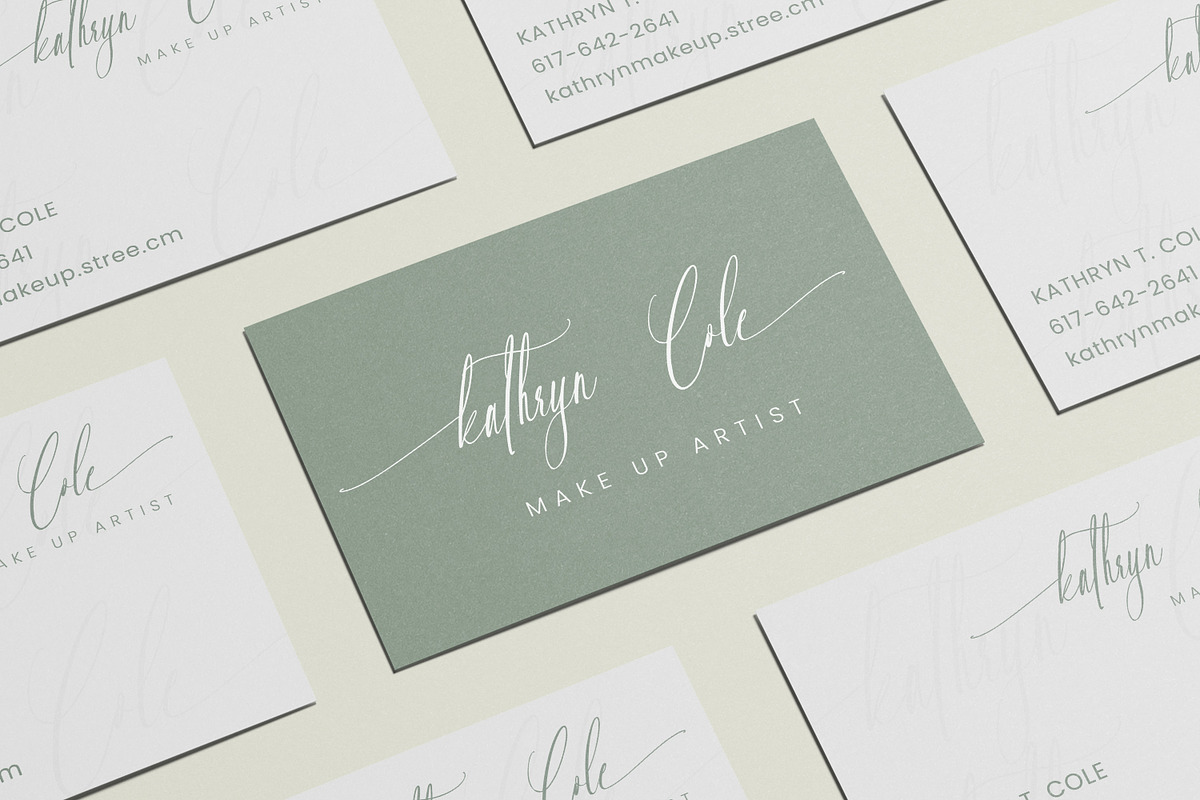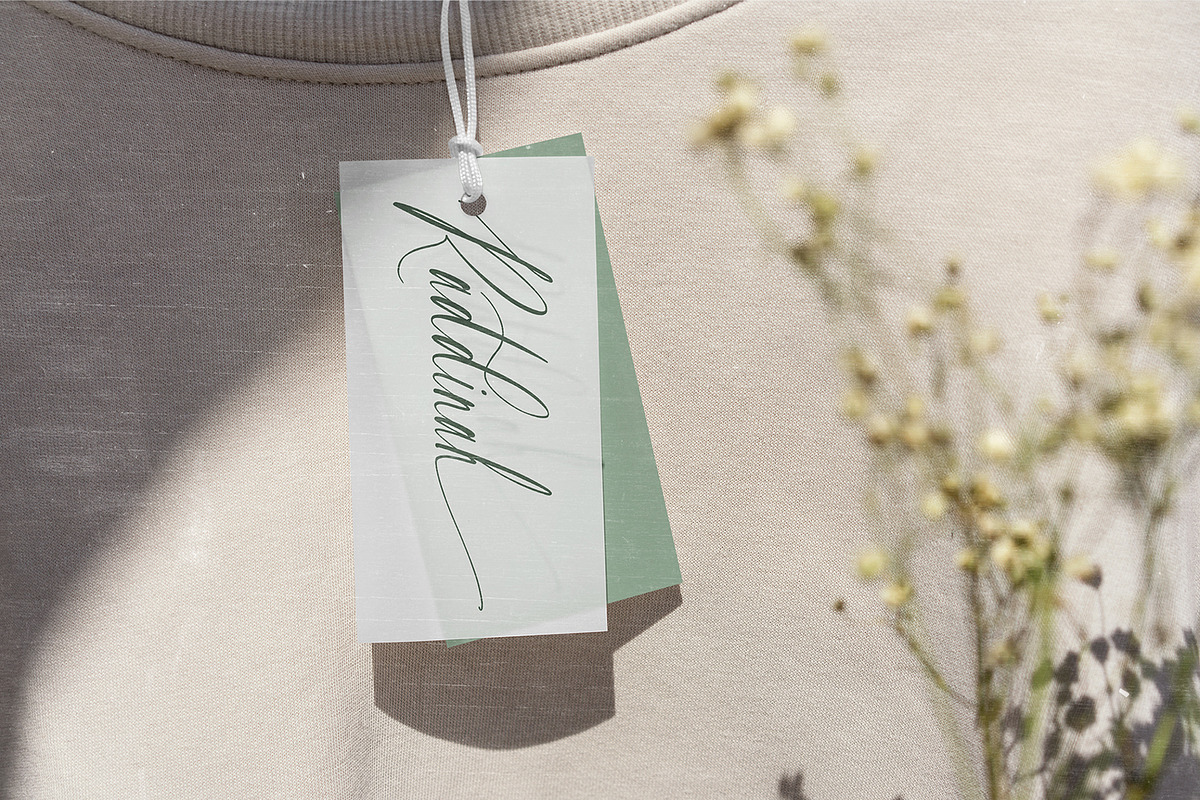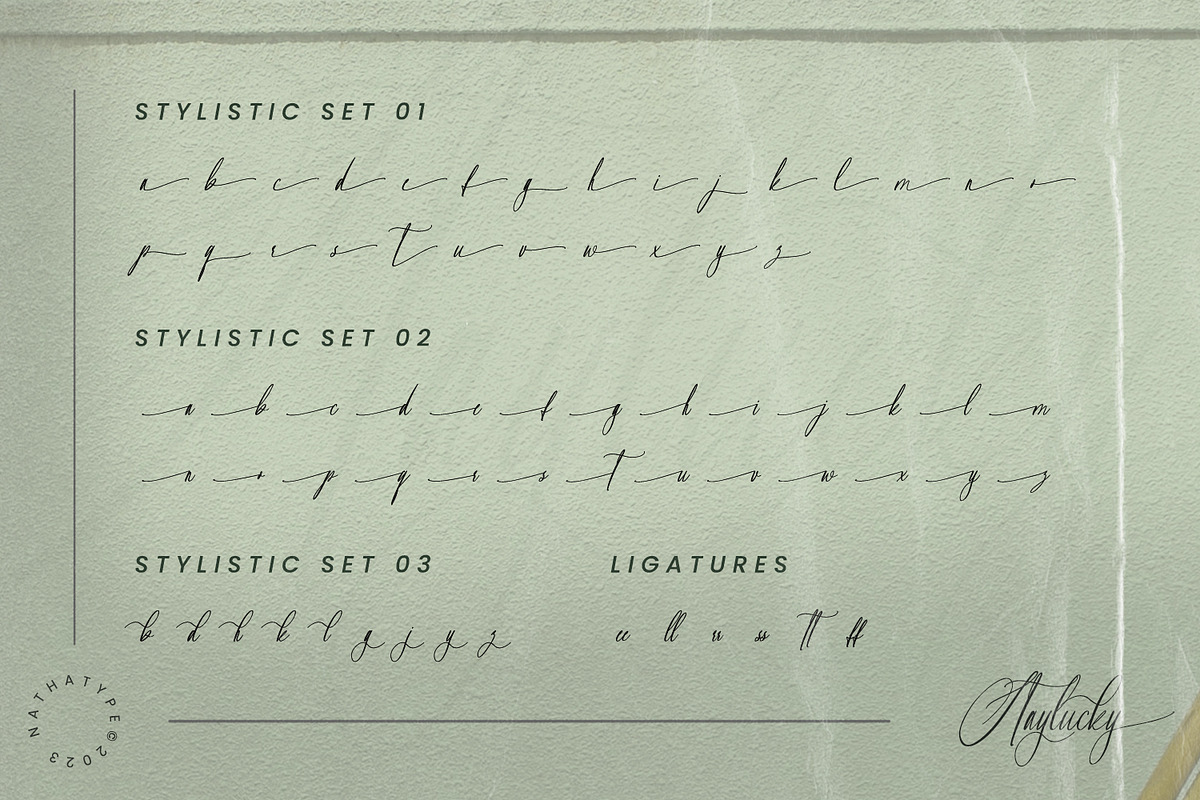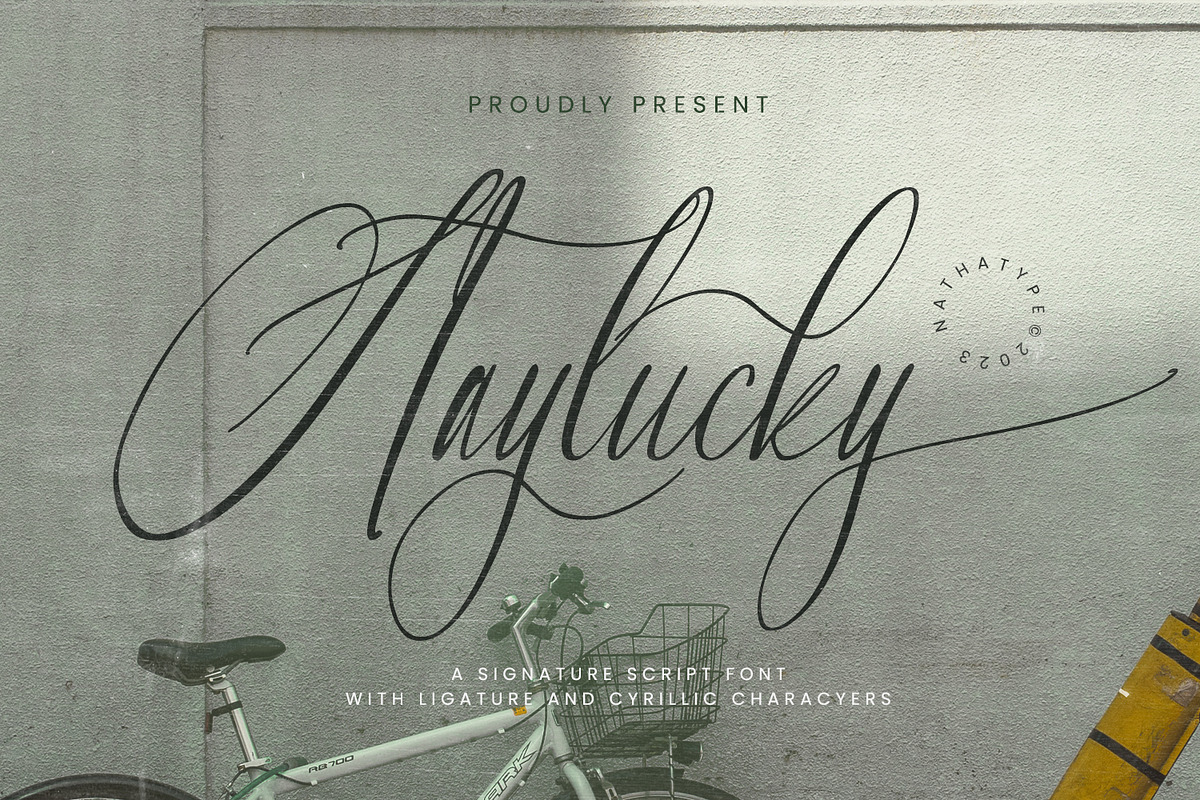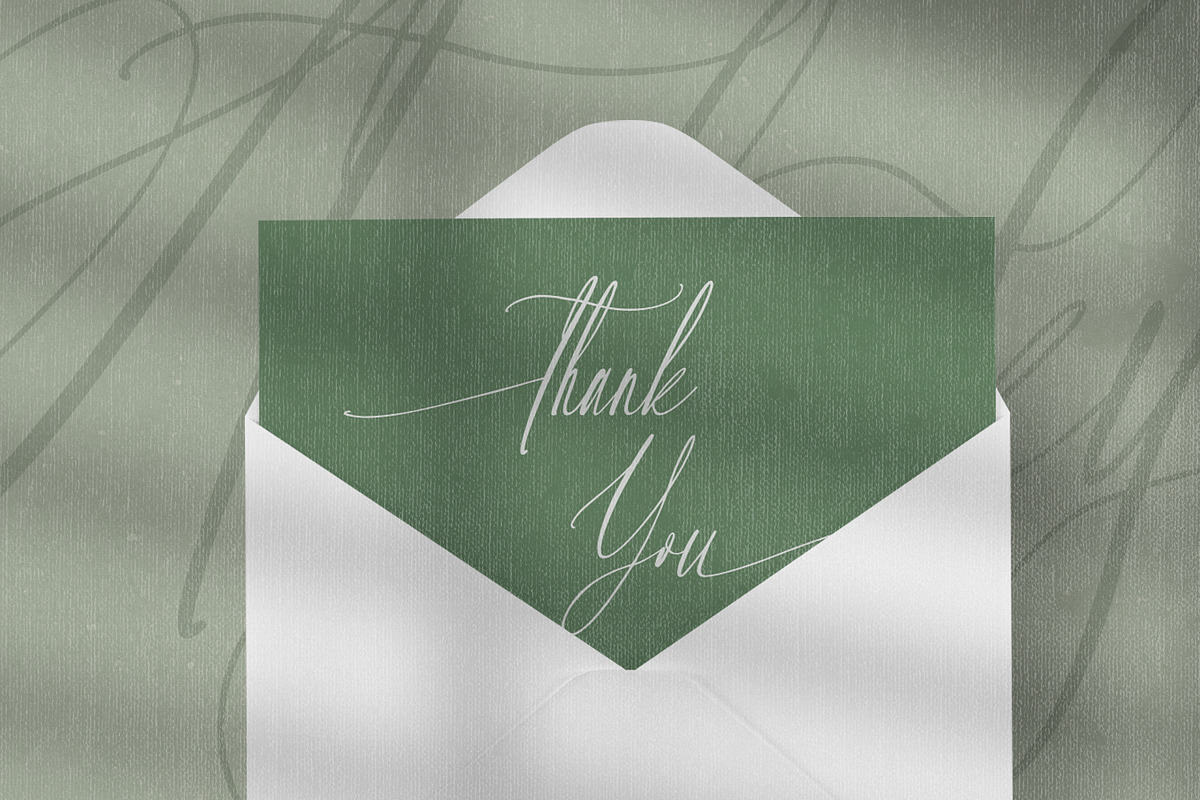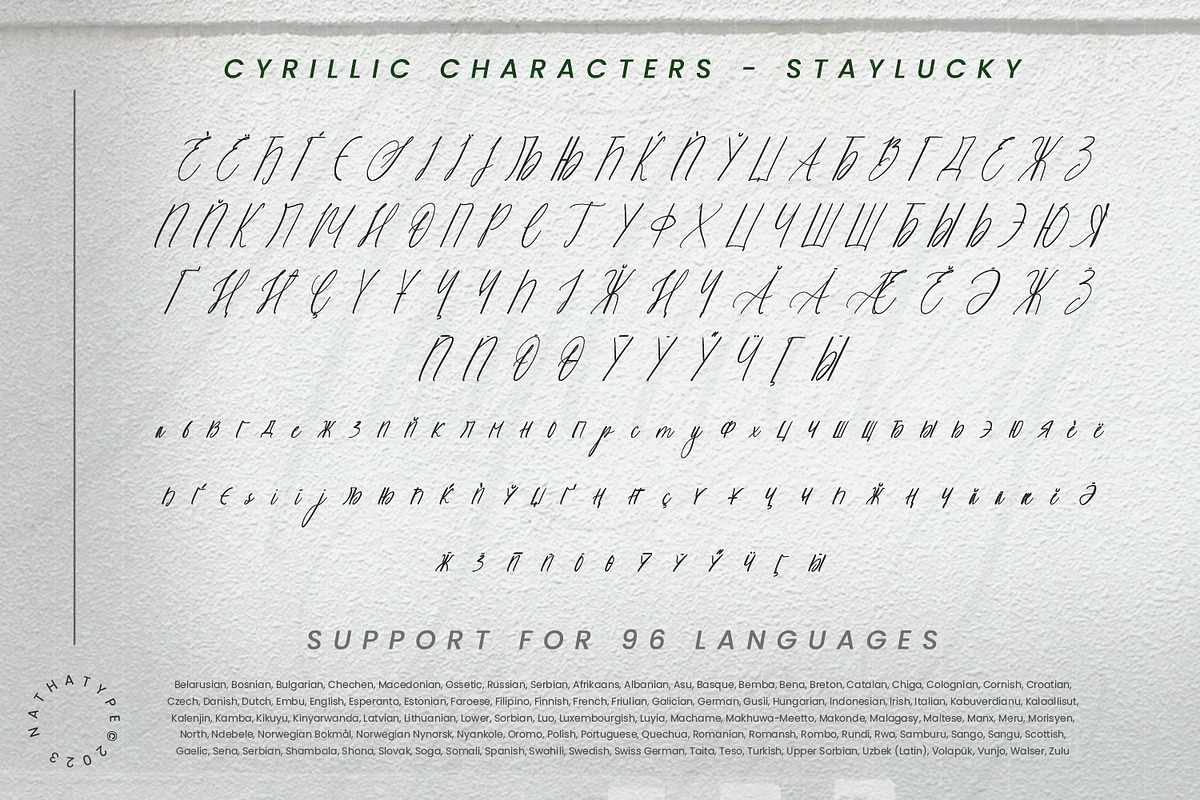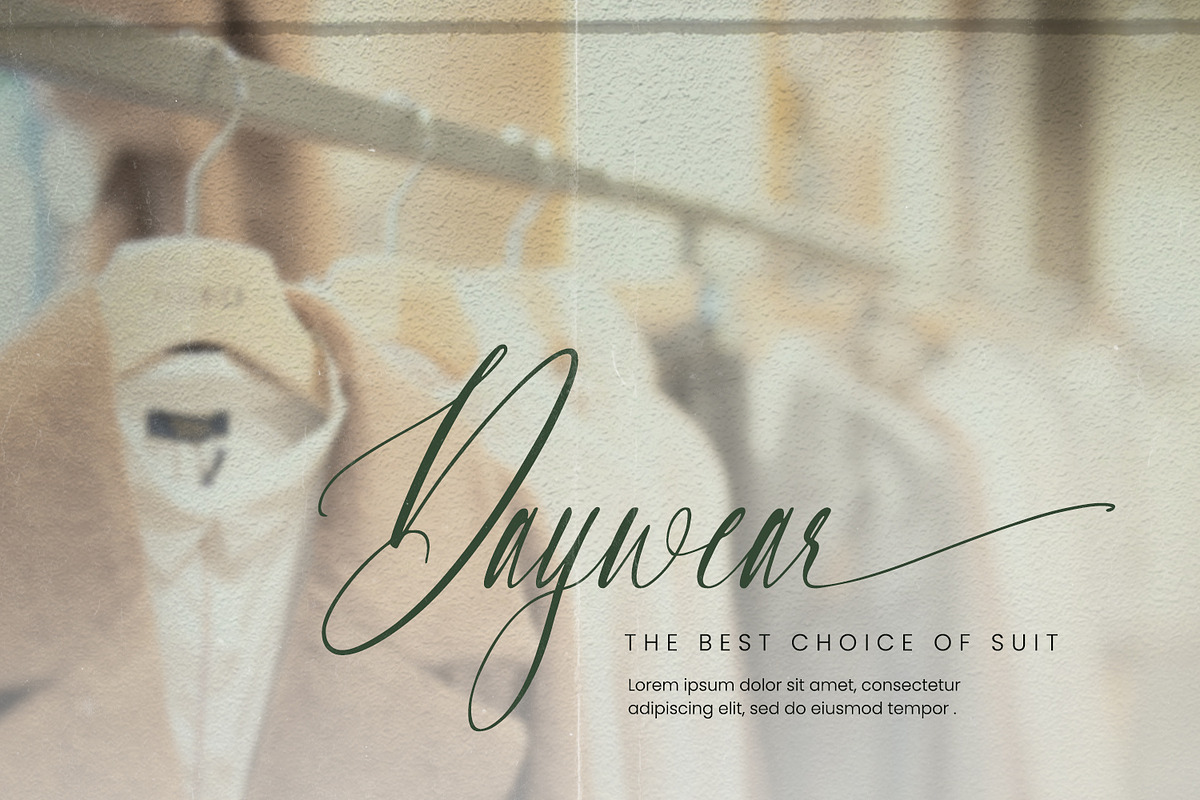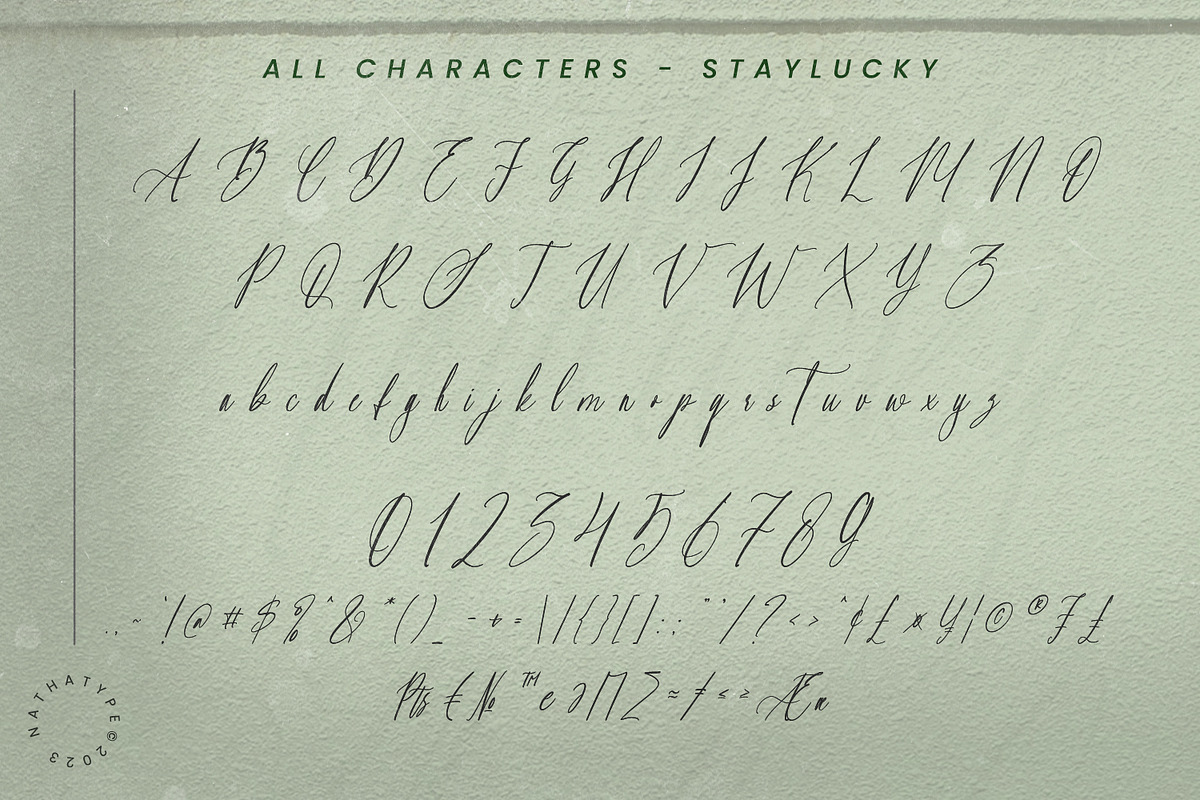
Staylucky
It can be a tough challenge to find a perfect font for your aesthetic projects to create an everlasting nuance. Handwriting fonts have prominent displays and nuances, but they often rely on old-fashioned script fonts. Therefore, Staylucky is here to give you the best.
Staylucky is a script font created to be a visually attractive handwriting which is perfect to express modern, elegant nuances with personalized designs to amaze readers and to protrude your messages. It is made in cursive styles in which the letters are interconnected. Details on each letter show high contrast and curvy wipes on each edge. Its complicated forms made it more suitable to apply for big, short texts. You can also enjoy the available features here as well.
- Stylistic Sets
Staylucky fits best for various design projects, such as brandings, invitations, greeting cards, name cards, quotes, printed products, merchandise, social media, etc. Find out more ways to use this font by taking a look at the font preview.